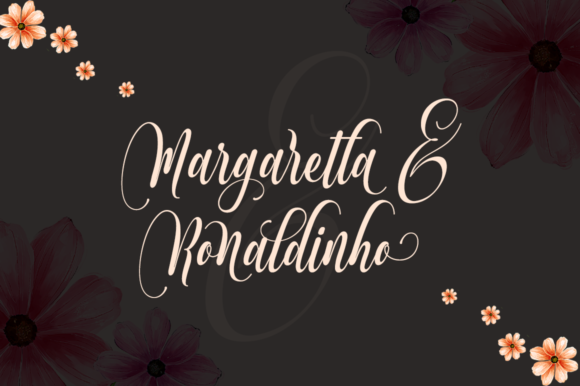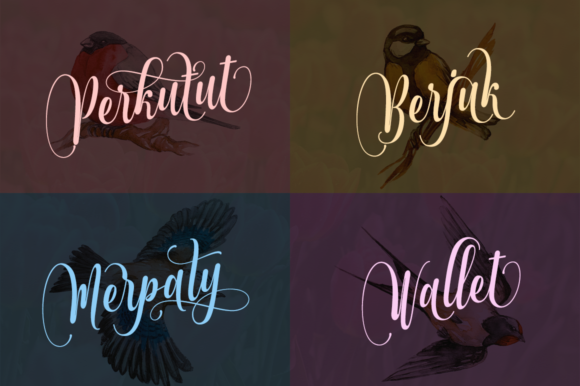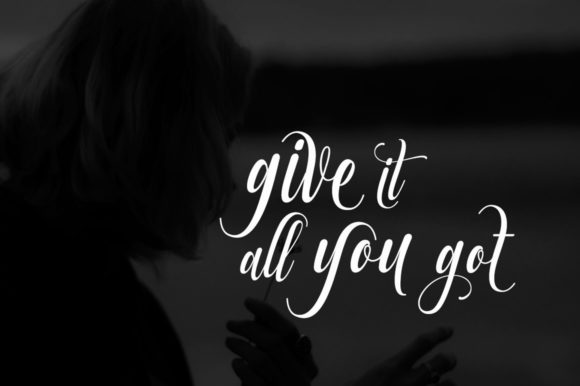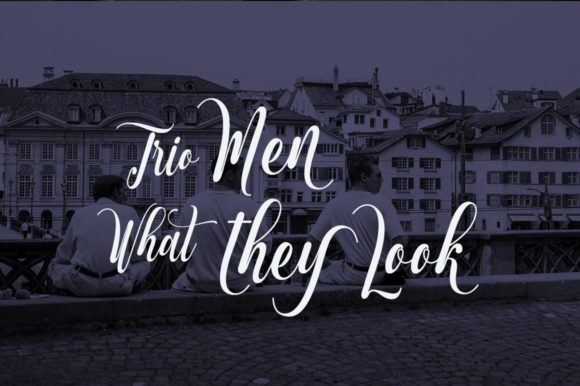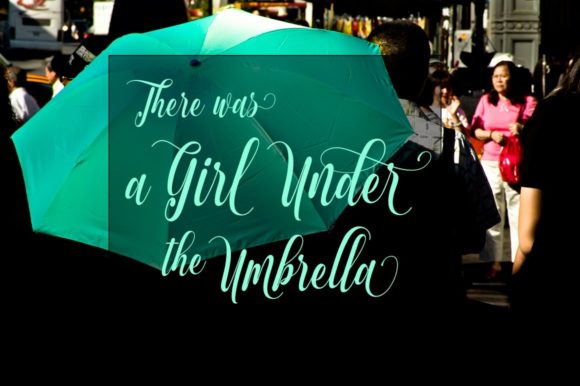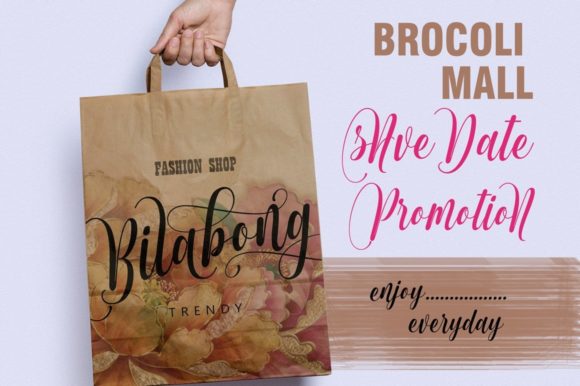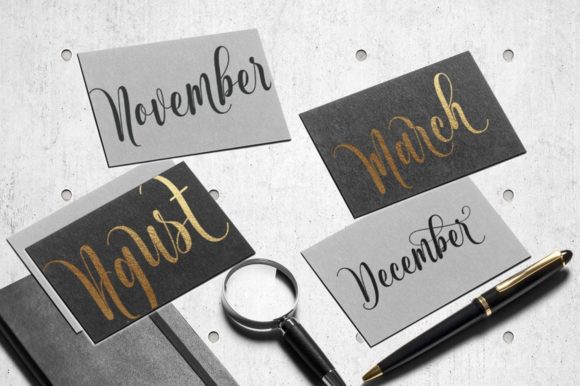
Muthya Font
About Muthya Font
Muthya is an elegant script font. Not too thin and not too thick, balanced and varied, this font was designed to enhance the beauty of your projects. Muthya is PUA encoded which means you can access all glyphs and swashes with ease!